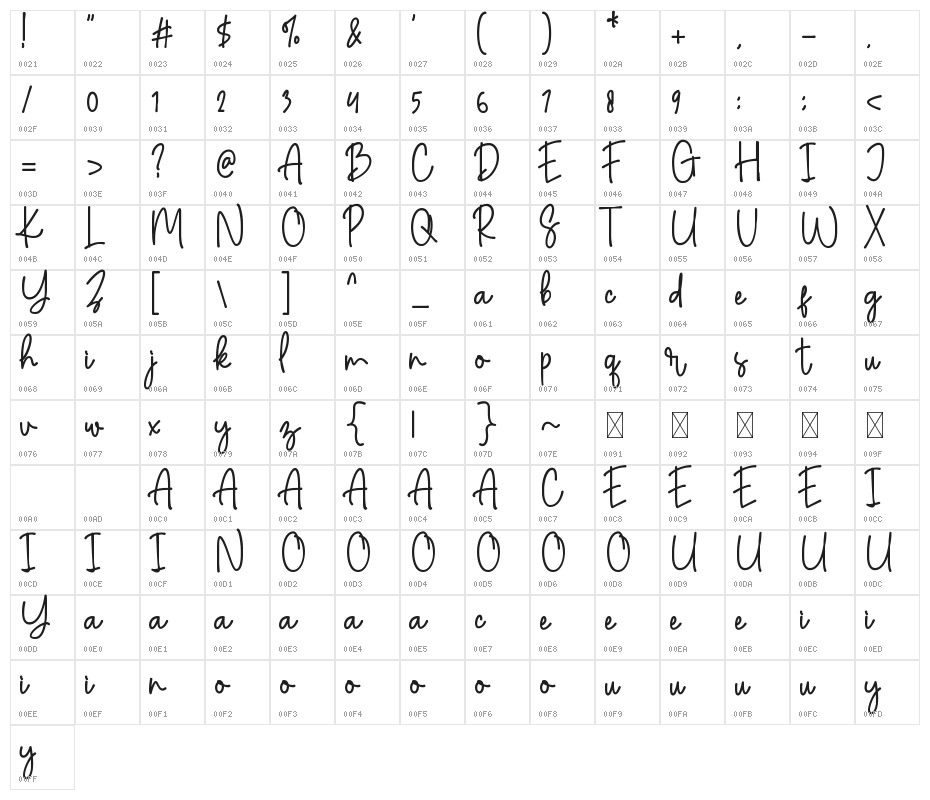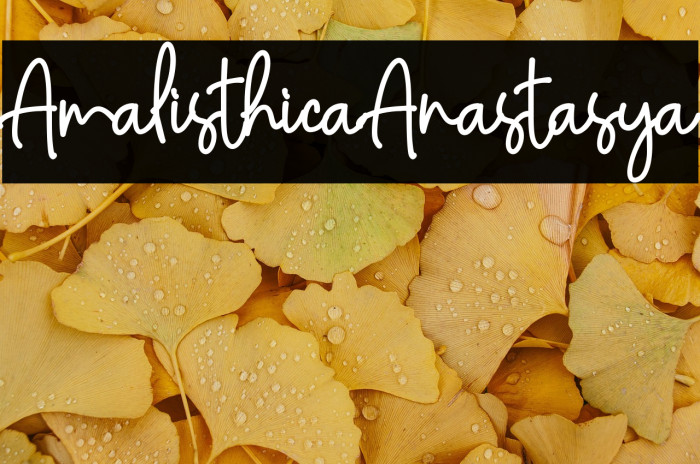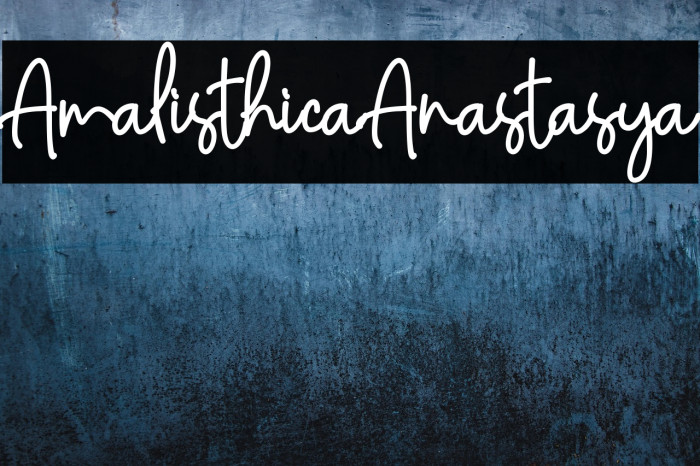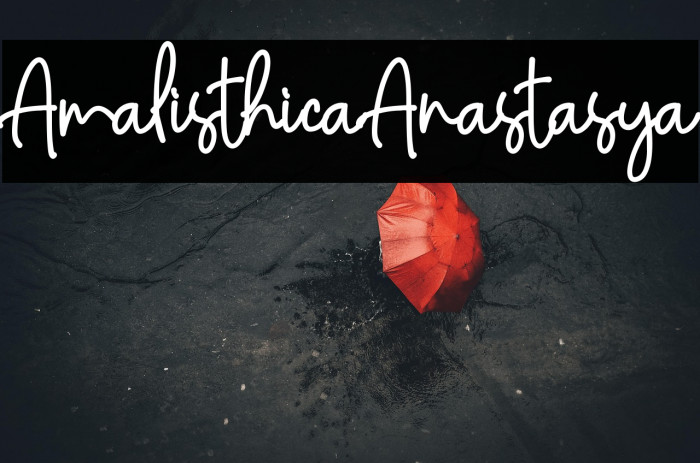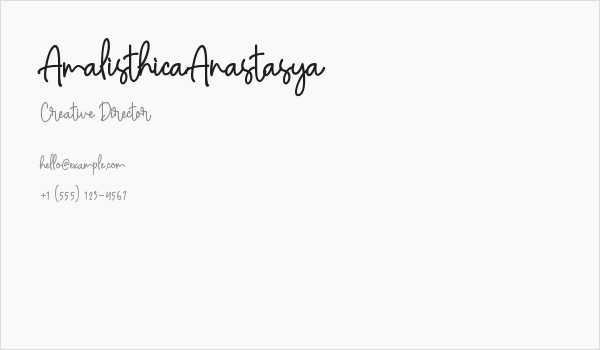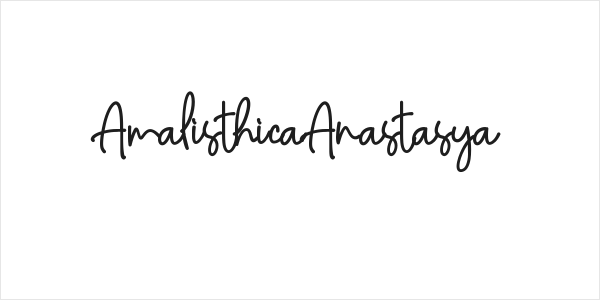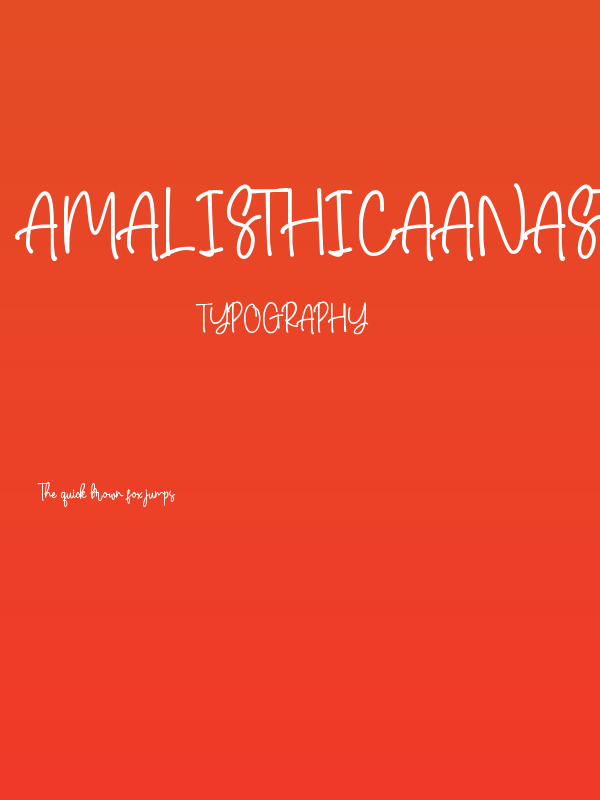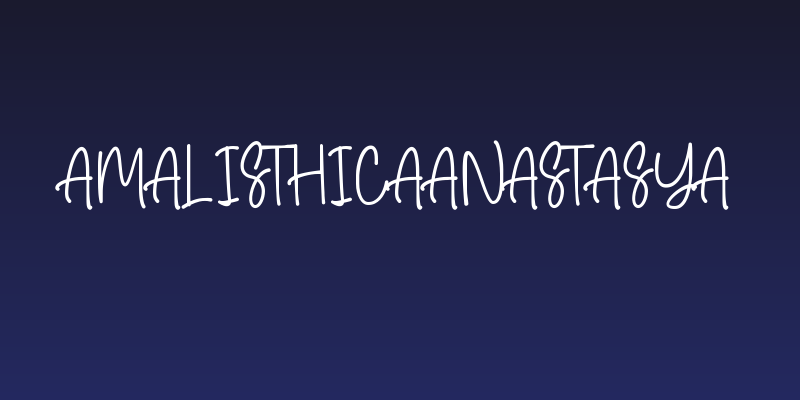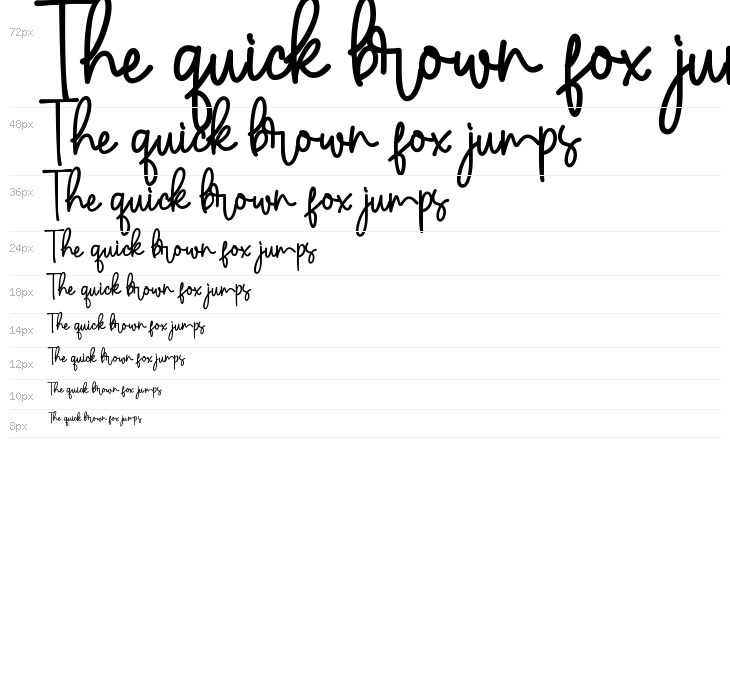
AmalisthicaAnastasya Font
AmalisthicaAnastasya Description
A playful, handwritten font with a casual and flowing style, featuring irregular strokes and a personal touch.
| Use Case | Logos, Informal text, Personal notes |
| Proposed Projects | Greeting cards, personal branding, informal invitations. |